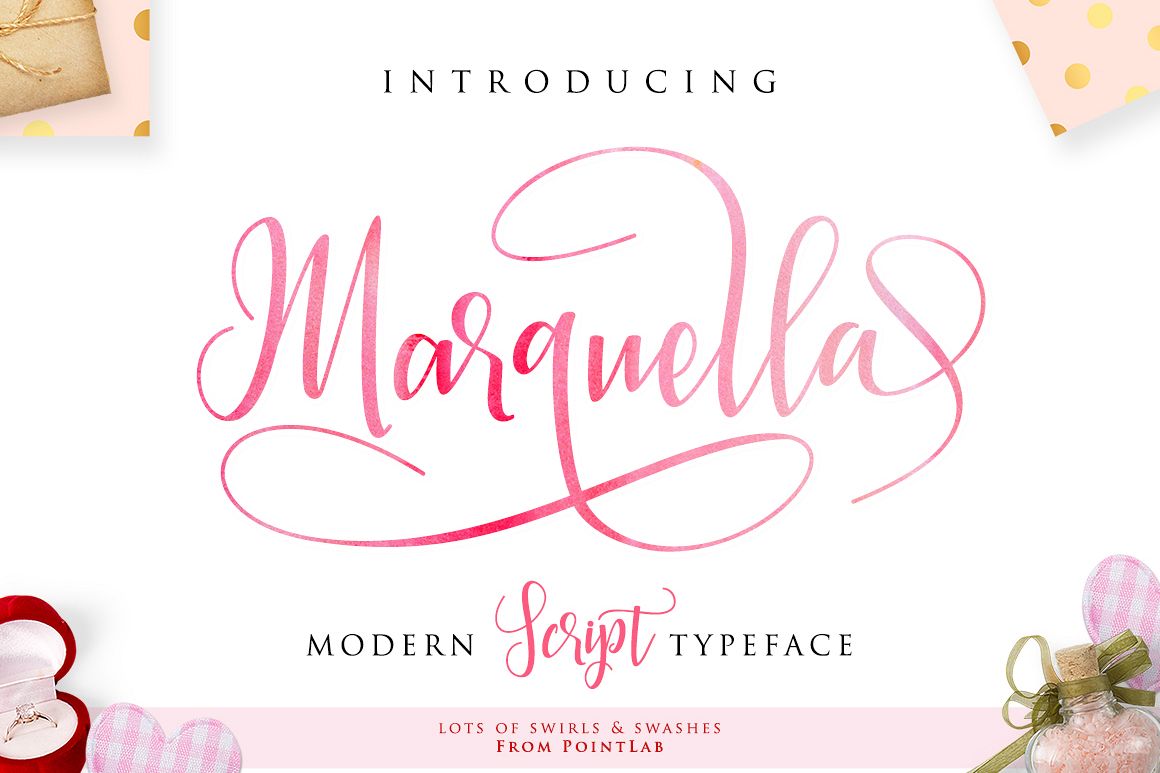
Introduce my new font Marquella Script is a unique blend of classic and modern font.imperfect style ups and downs, like a dance letters, smooth, clean and simple. Marquella Script perfect for wedding, event, invitation, escort card, table number, header menus, display, logos, slider blog, custom address, stamps, packaging, greeting card, etc.Marquella Script including alternate glyph and beautiful swirl in a font including stylistic sets, Ligatures etc. The Open Type features can be accessed by using Open Type savvy programs such as Adobe Illustrator CS, Adobe Indesign & CorelDraw X6-X7 and Microsoft Word. And this Font has given PUA unicode (specially coded fonts). so that all the alternate characters can easily be accessed in full by a craftsman or designer.Files Include :
• Basic Latin A-Z and a-z
• Numeral & Punctuation
• Stylistic Set & Ligatures
• Script 1075 Glyphs
• PUA Encode (Specially Coded Fonts)